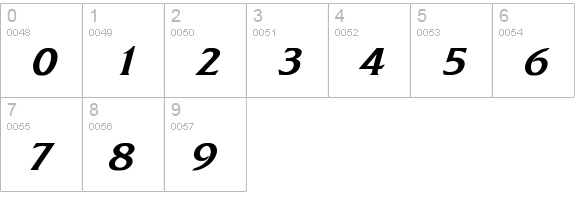
Whitethorning Bold Italic Font Details
Whitethorning Bold Italic is a strong, high-contrast, italic variant in the Whitethorning typeface family \xE2\x80\x94 well suited to headlines, attention-grabbing titles, and strong calls-to-action.
Whitethorning Bold Italic is an exquisite and eye-catching font that combines elegance and boldness in a unique way. With its intricate curves and delicate strokes, this font exudes a sense of sophistication and refinement. Designed for those who want to make a bold statement, Whitethorning Bold Italic is perfect for logos, headlines, and any design project that requires a touch of creativity and flair. Its bold and italicized nature adds a dynamic and expressive element, making it stand out from the crowd. What sets Whitethorning Bold Italic apart is not only its stunning design but also its availability. This font is freely available to download at FontsMarket.com, allowing designers, creatives, and enthusiasts to access this gem without any cost. This means that you can use it in both personal and commercial projects without worrying about licensing fees. Whether you are a professional designer looking for a versatile font or someone who enjoys experimenting with typography, Whitethorning Bold Italic is a must-have addition to your font collection. Its boldness, elegance, and the fact that it is free to download make it a truly irresistible choice for any project. So, don't miss the opportunity to enhance your designs with this remarkable font - get Whitethorning Bold Italic today!